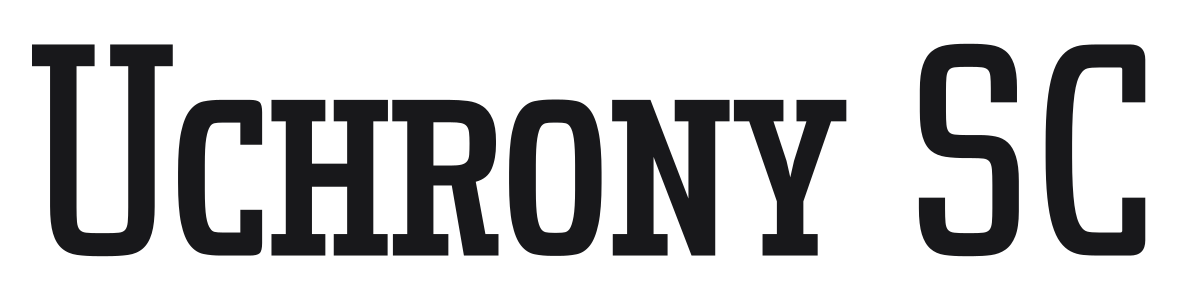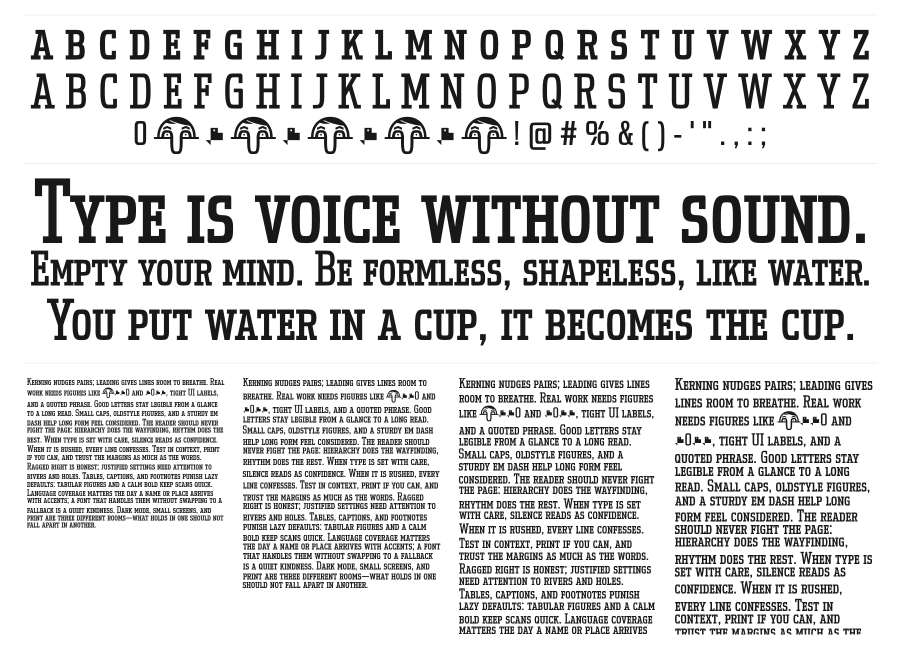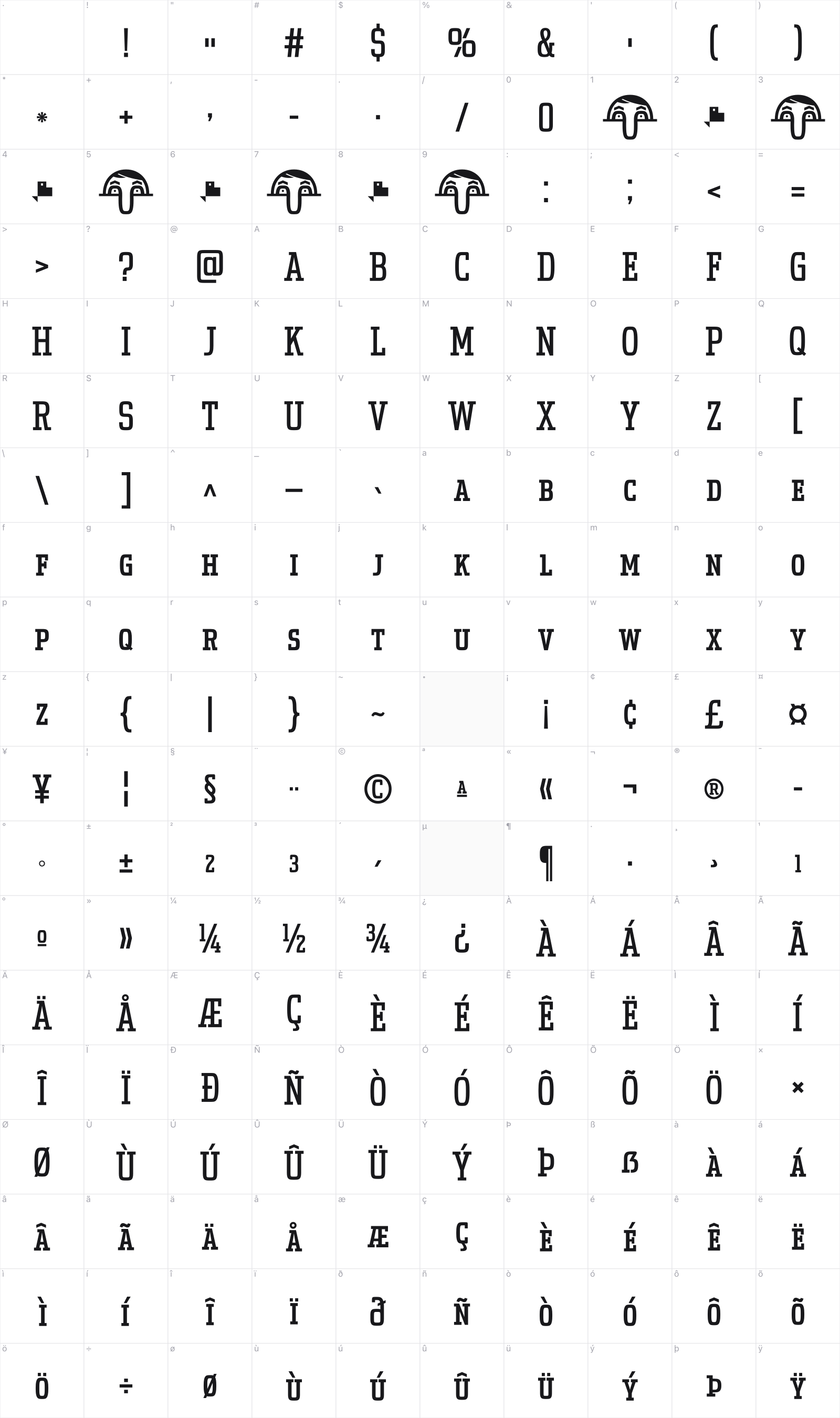
Uchrony SC
Uchrony SC is a condensed slab serif typeface rendered in small caps with a heavy, press-ready presence. The low stroke contrast and thick bracketed serifs give it a sturdy uniformity that holds up well at large sizes. It draws on the tradition of newspaper and sporting headlines, where authority and legibility share equal billing.